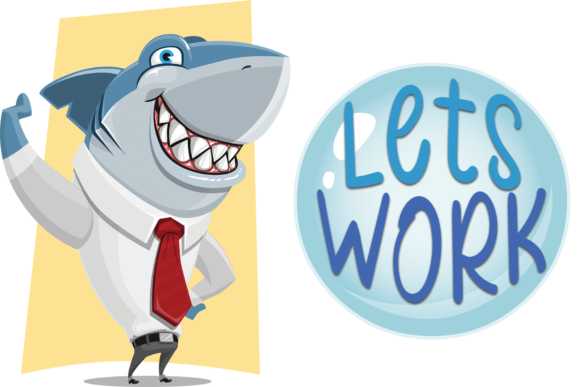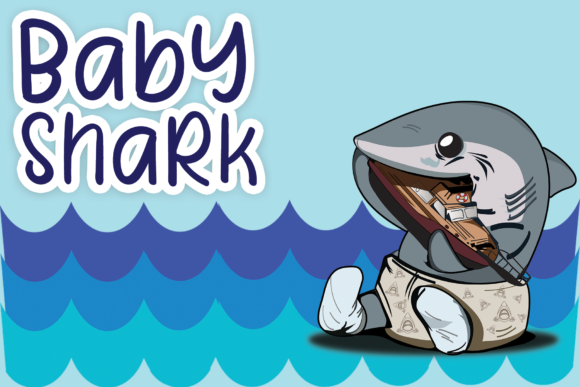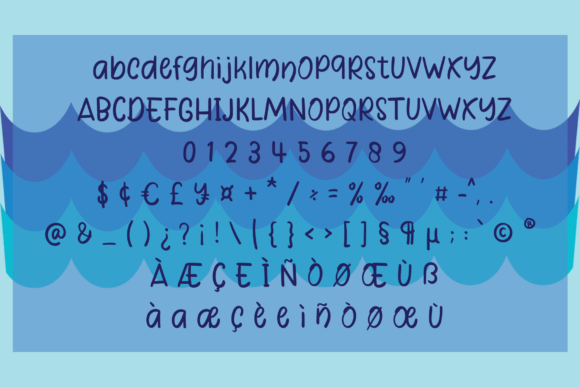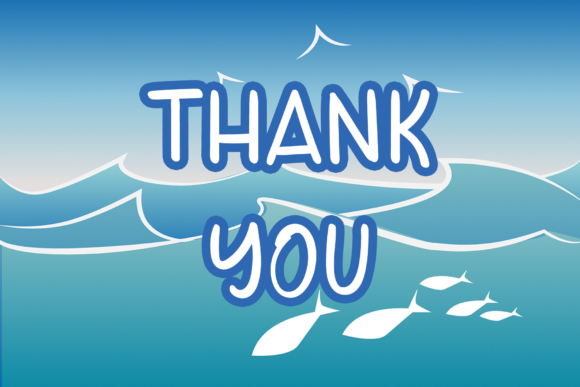
About Daddy Shark Font
Daddy Shark is a cute and fun handwritten font. Get creative with its childlike playfulness, and use it to brighten up any kids and school project!